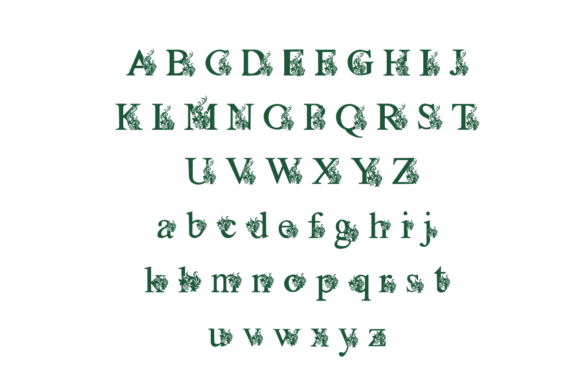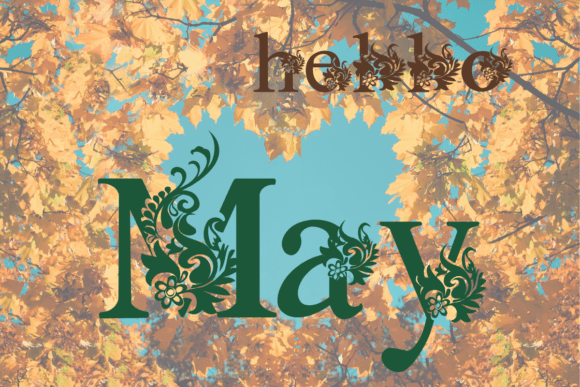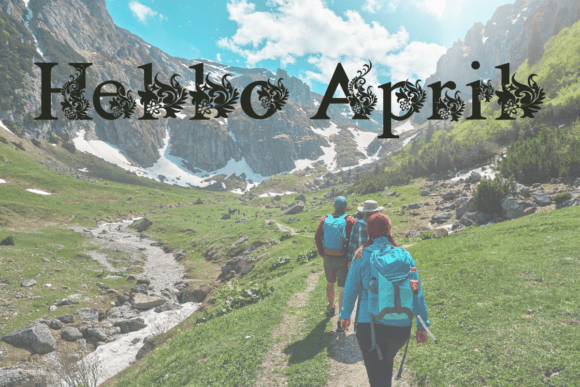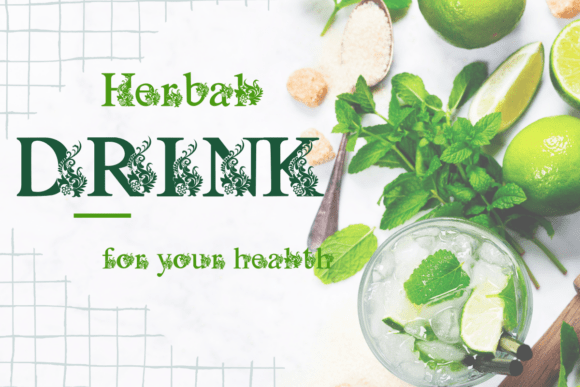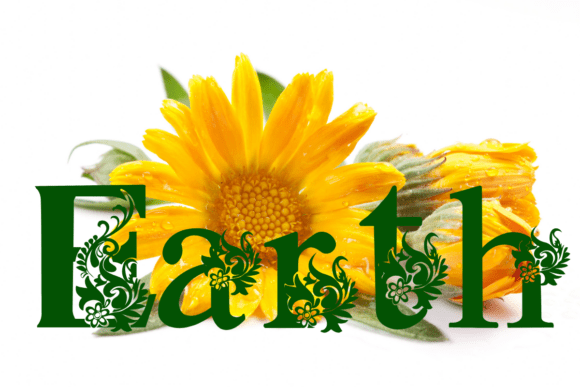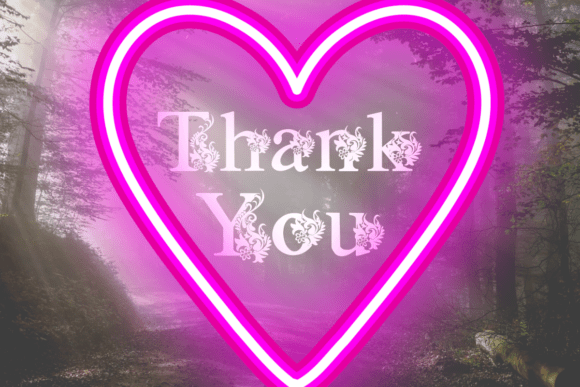
Introducing Beautiful Adventure Art Font: Elevate Your Designs with Elegance
Are you a designer, crafter, or DIY enthusiast looking for a unique and stunning font to add a personal touch to your projects? Look no further than the Beautiful Adventure Art Font, a gorgeous decorative font that is sure to elevate your designs and make them stand out.
What is Beautiful Adventure Art Font?
Beautiful Adventure Art Font is a beautiful, hand-crafted font that is perfect for a wide range of creative projects. Its elegant and artistic design makes it ideal for taking notes, writing a diary, or creating greeting cards. However, its versatility means you can use it for so much more, including designing banners, content, mugs, cards, shirts, stationery, social media posts, and more!
Key Features of Beautiful Adventure Art Font
- Unique and Decorative: This font boasts a distinctive and decorative style that will add a touch of elegance to any project.
- Highly Versatile: Whether you’re creating digital content or physical products, Beautiful Adventure Art Font can be used for a wide range of applications.
Creative Ways to Use Beautiful Adventure Art Font
The possibilities are endless when it comes to using Beautiful Adventure Art Font. Here are some creative ways to incorporate this stunning font into your projects:
- Journaling and Diary Writing: Add a touch of elegance to your journal or diary entries with this beautiful font.
- Greeting Cards and Invitations: Create stunning greeting cards, invitations, and other paper crafts that will leave a lasting impression.
- Social Media Graphics: Elevate your social media posts with eye-catching graphics featuring Beautiful Adventure Art Font.
- Merchandise Design: Design unique and captivating merchandise, such as mugs, t-shirts, and tote bags, that showcase this gorgeous font.
- Stationery and Planners: Create beautiful stationery, planners, and journals that are both functional and visually appealing.
Why Choose Beautiful Adventure Art Font?
In a world where digital content and physical products are becoming increasingly popular, having a unique and recognizable brand identity is crucial. Beautiful Adventure Art Font offers a distinctive and stylish solution for designers and crafters looking to add a personal touch to their creations. With its elegant design, versatility, and ease of use, this font is sure to become a staple in your design toolkit.
Tips for Getting the Most Out of Beautiful Adventure Art Font
- Experiment with Colors: Pair Beautiful Adventure Art Font with a range of colors to create visually striking designs.
- Mix and Match Fonts: Combine this font with other complementary fonts to add depth and interest to your designs.
- Play with Sizes: Use different font sizes to create visual hierarchy and emphasize key elements in your designs.
- Be Creative: Don’t be afraid to think outside the box and try new and innovative ways to use Beautiful Adventure Art Font.
Beautiful Adventure Art Font is a stunning decorative font that offers a world of creative possibilities for designers and crafters. With its elegant design, versatility, and ease of use, it’s the perfect addition to any design project. Whether you’re creating digital content, physical products, or simply looking for a unique way to express yourself, Beautiful Adventure Art Font is sure to inspire and elevate your designs.